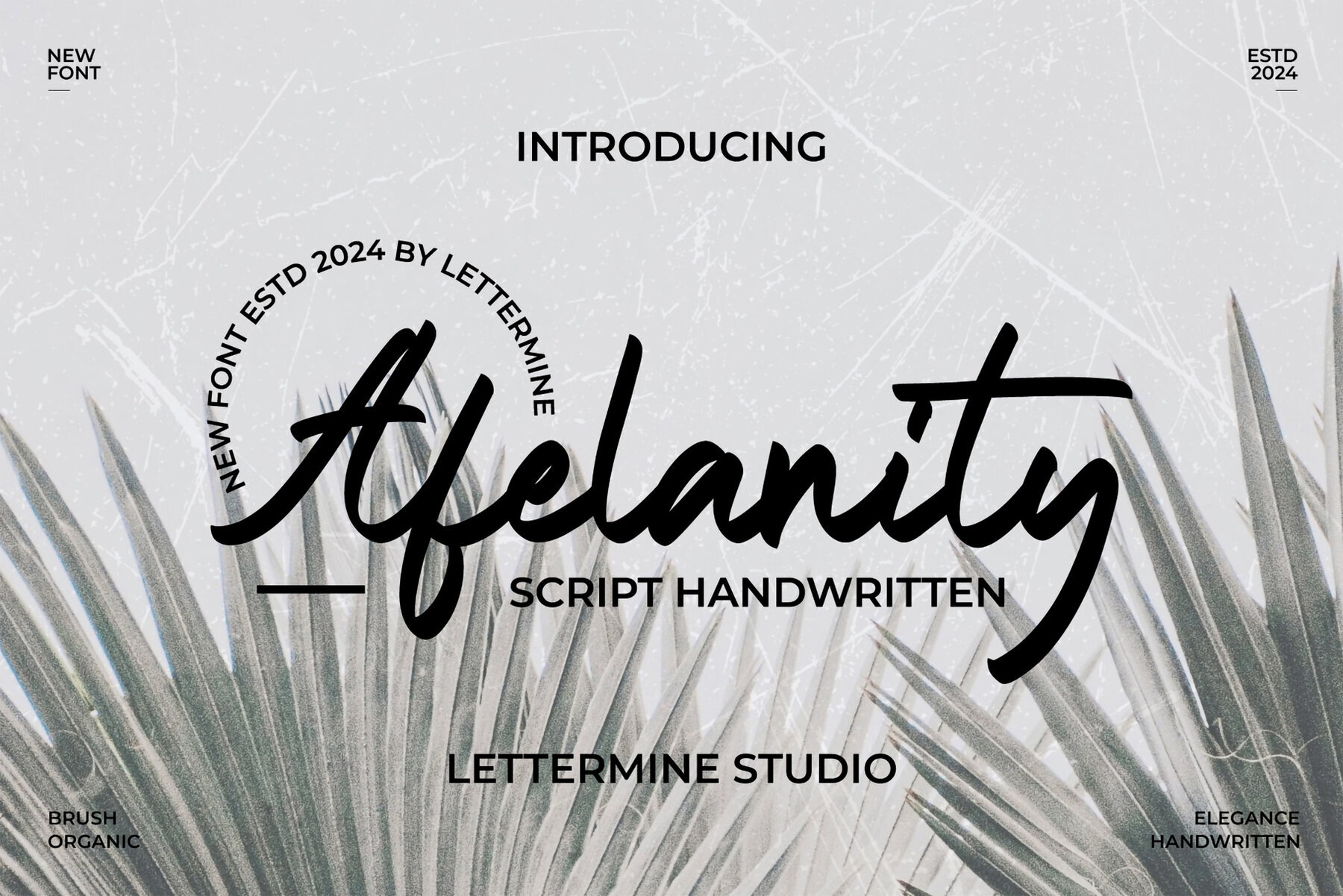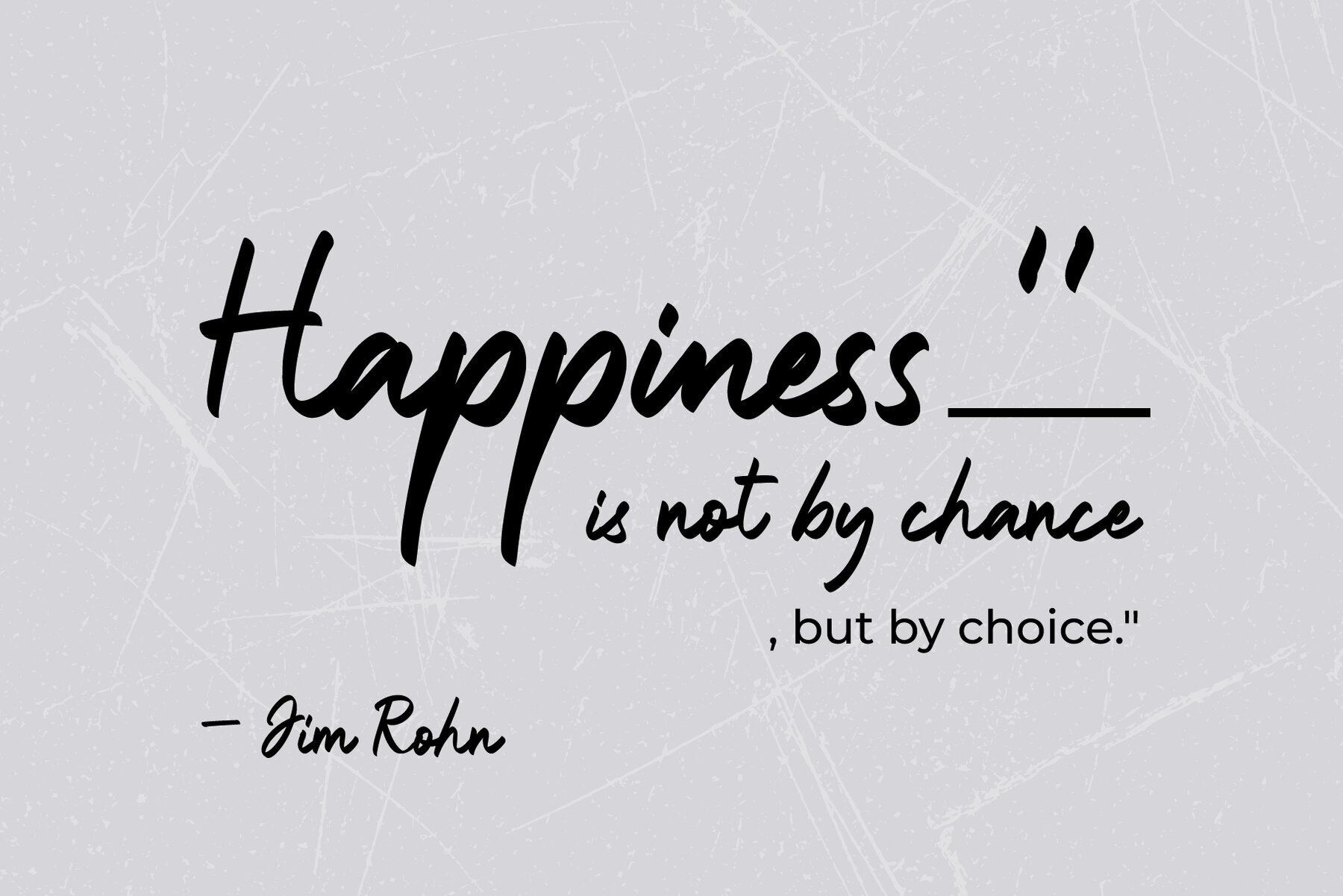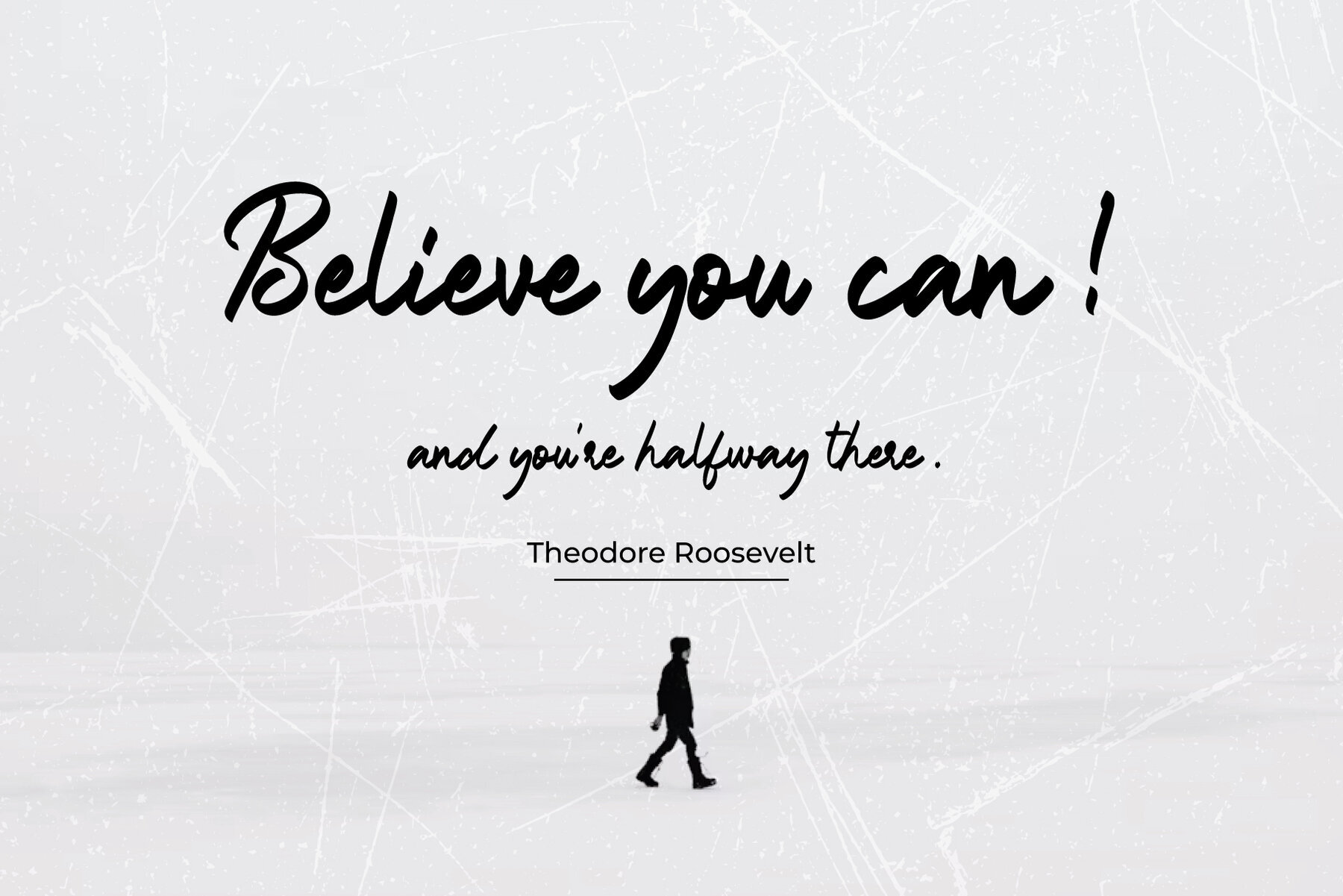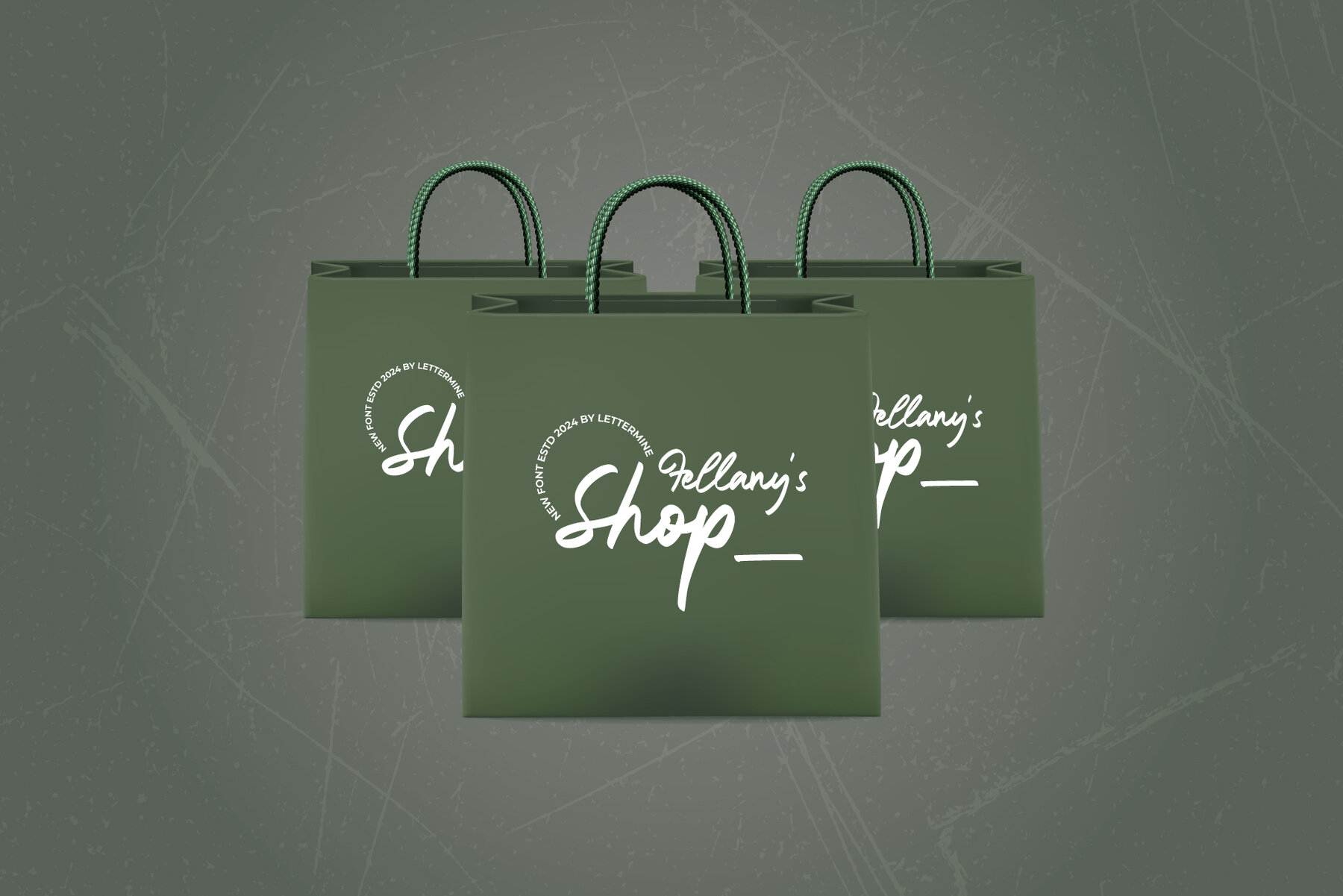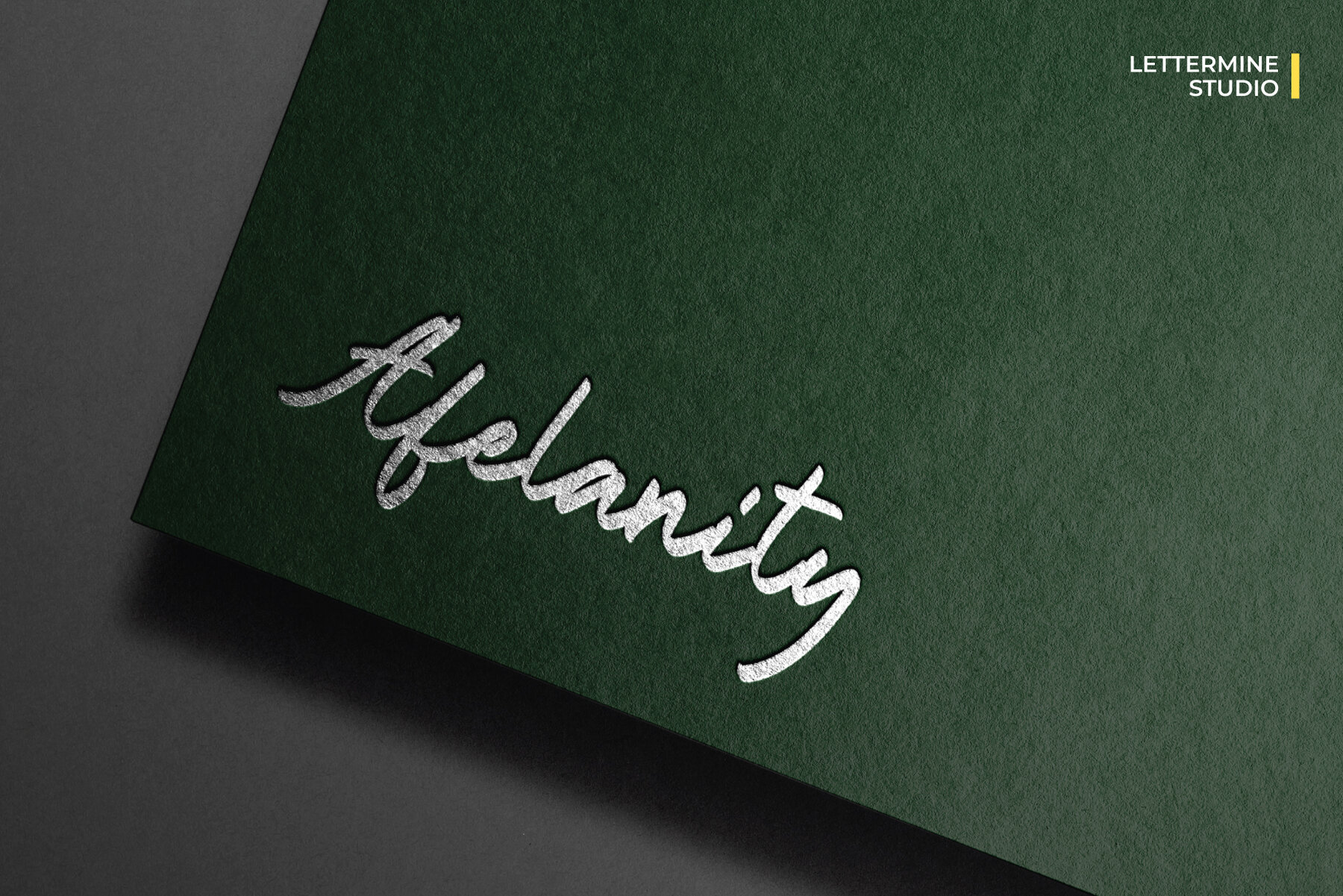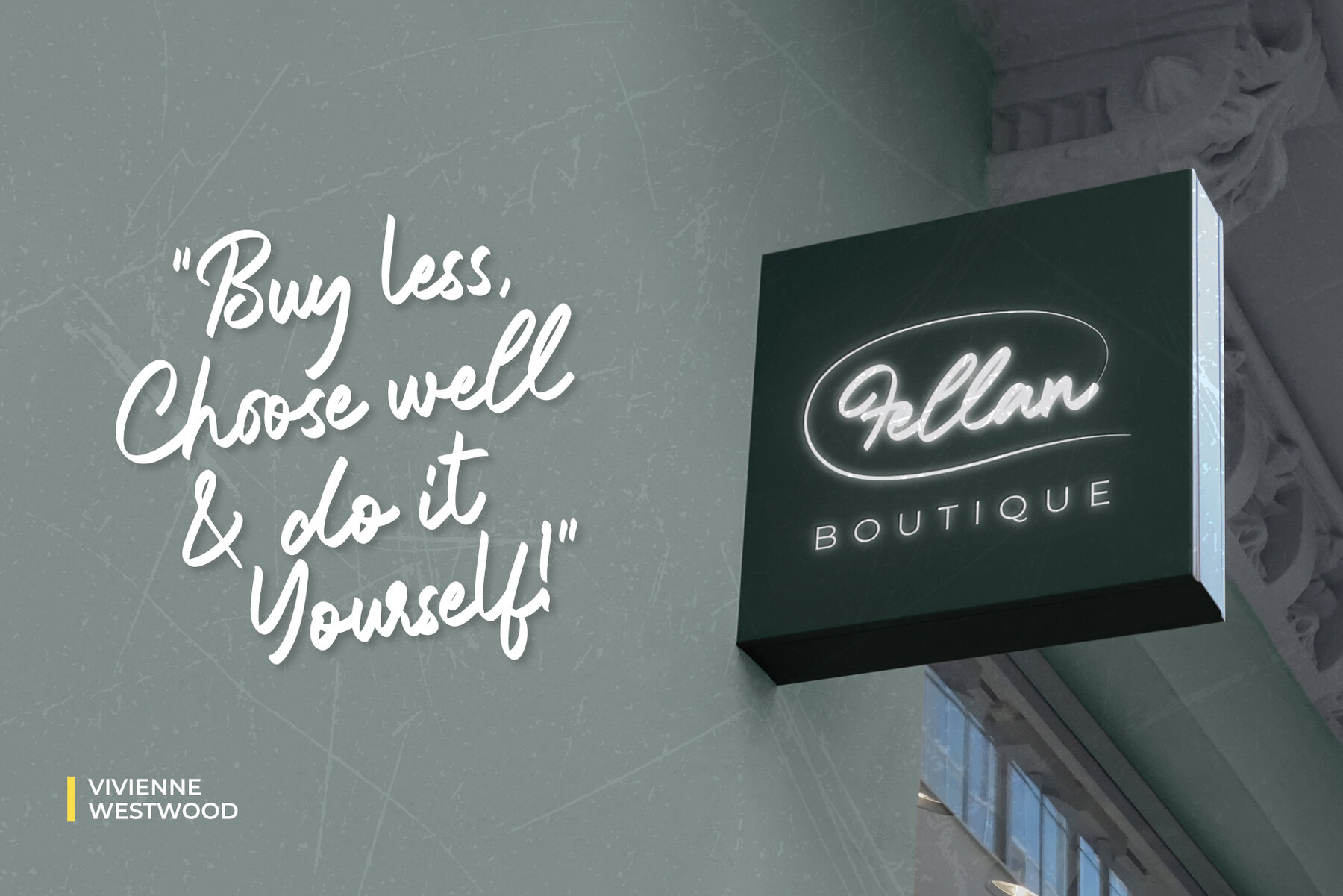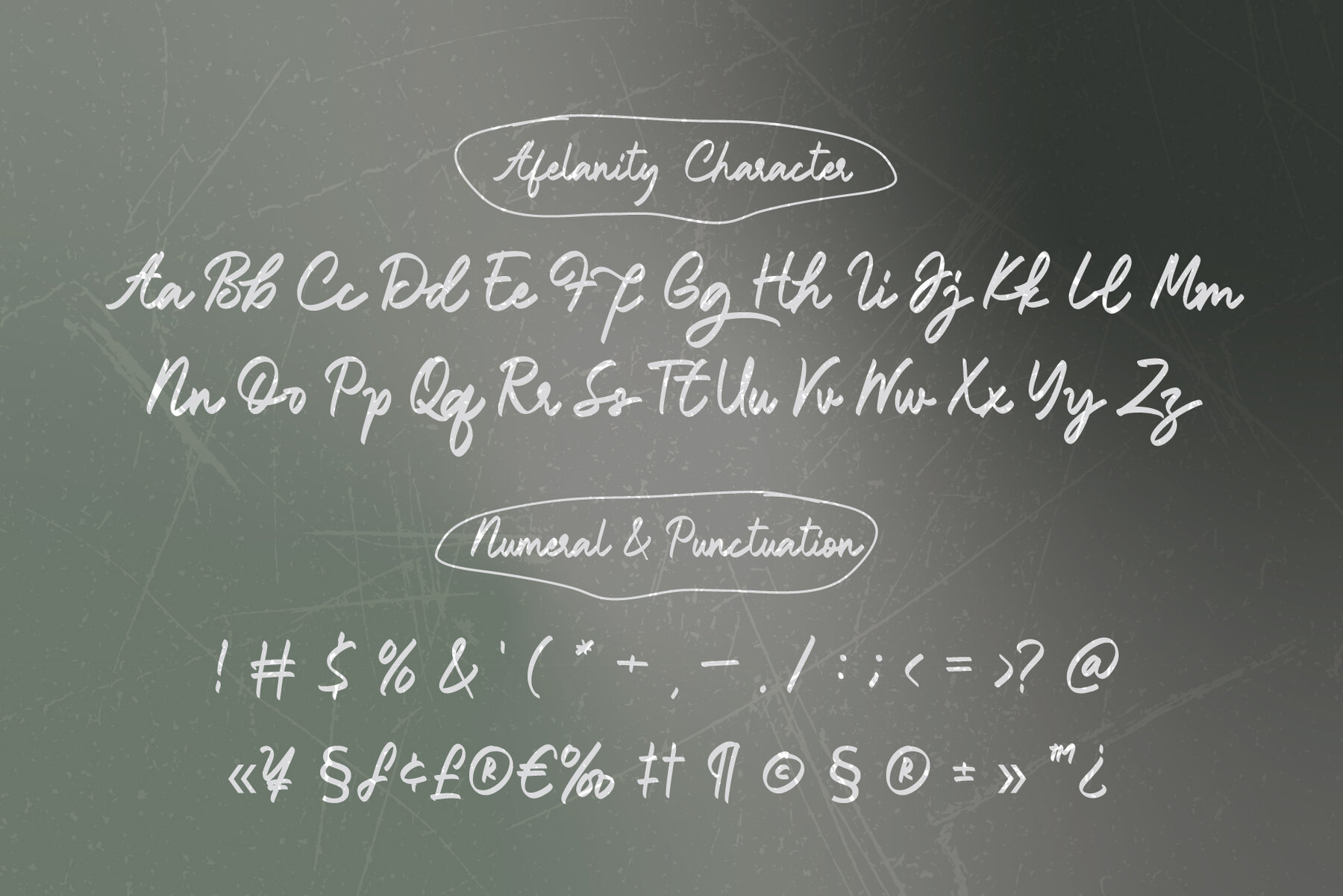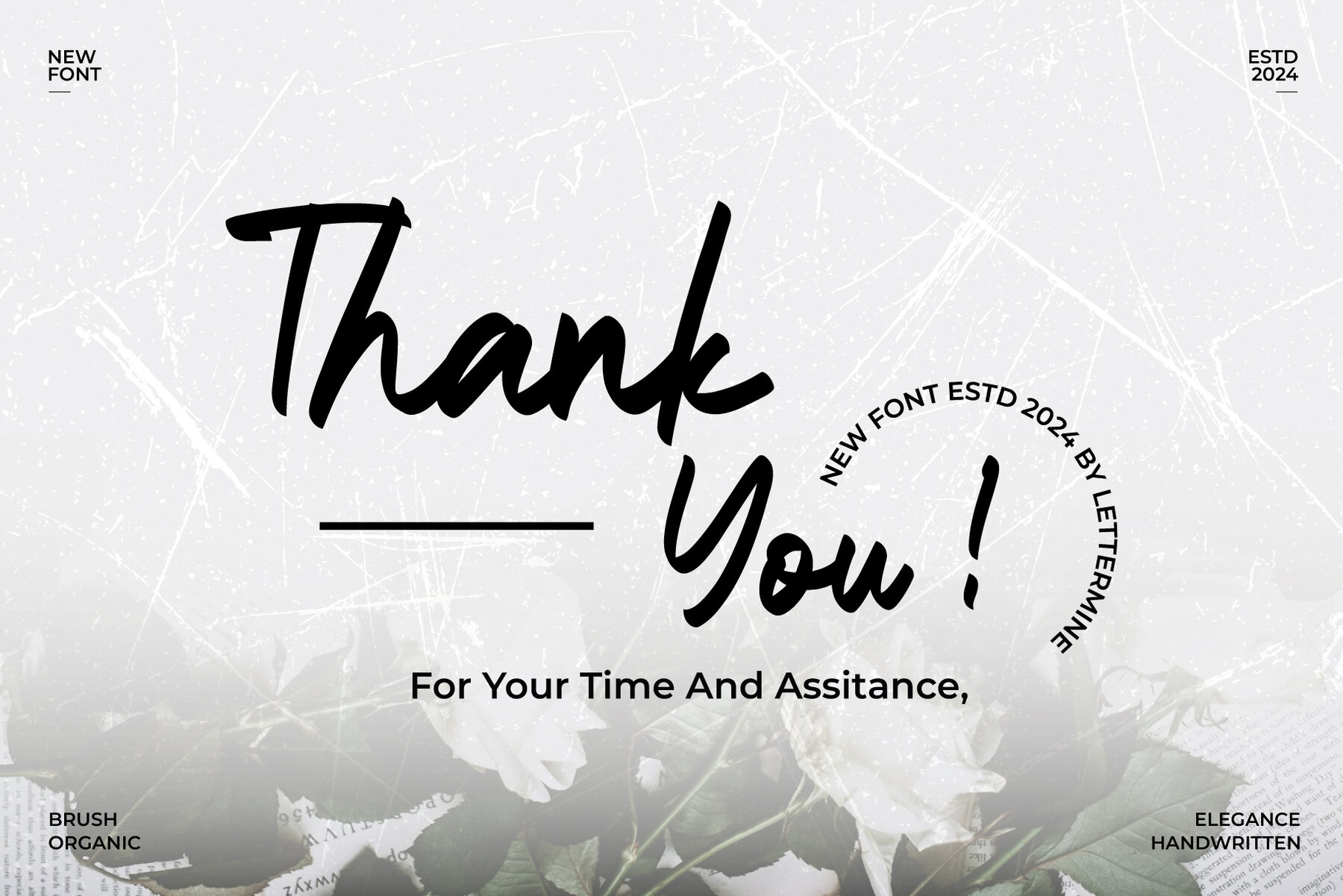
Afelanity Font
Afelanity Regular
Afelanity is a charming handwritten script font that lends a personal and sophisticated touch to your creative projects. With its smooth, flowing strokes and carefully crafted ligatures, this font is ideal for designs that need both elegance and readability. Whether you're creating a logo, invitation, or any other design, Afelanity offers a versatile balance between style and function.
This font includes a full set of uppercase and lowercase letters, along with complete punctuation. Its beautiful ligatures ensure seamless letter connections, and the available alternates allow for a more customized and unique look. Suitable for both professional and personal projects, Afelanity brings warmth and character to your designs, making it stand out effortlessly.